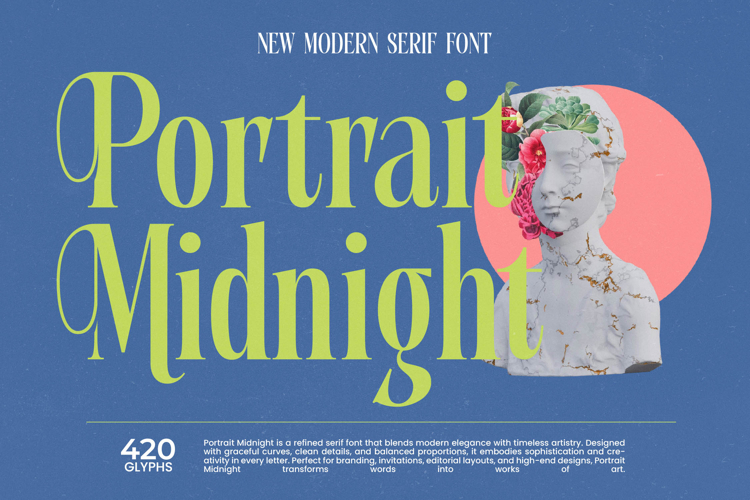
Portrait Midnight - Modern Serif Font
Discover the epitome of modern elegance merged with timeless artistry in Portrait Midnight - Modern Serif Font. This exquisite typeface instantly elevates any design, featuring a captivating blend of graceful curves and clean, high-contrast lines. Its meticulously crafted letterforms exude a refined aesthetic, making every word resonate with sophistication and creative impact. Portrait Midnight - Modern Serif Font is designed for those who demand unparalleled quality and visual distinction.
Elevate your visual narratives with the transformative power of Portrait Midnight - Modern Serif Font. It is perfectly suited for projects requiring a touch of grandeur and professionalism, including luxury branding, sophisticated packaging, and compelling editorial design. Whether crafting alluring invitations, impactful headlines, or elegant magazine layouts, this font ensures your message is delivered with undeniable class and authority, leaving a lasting impression.